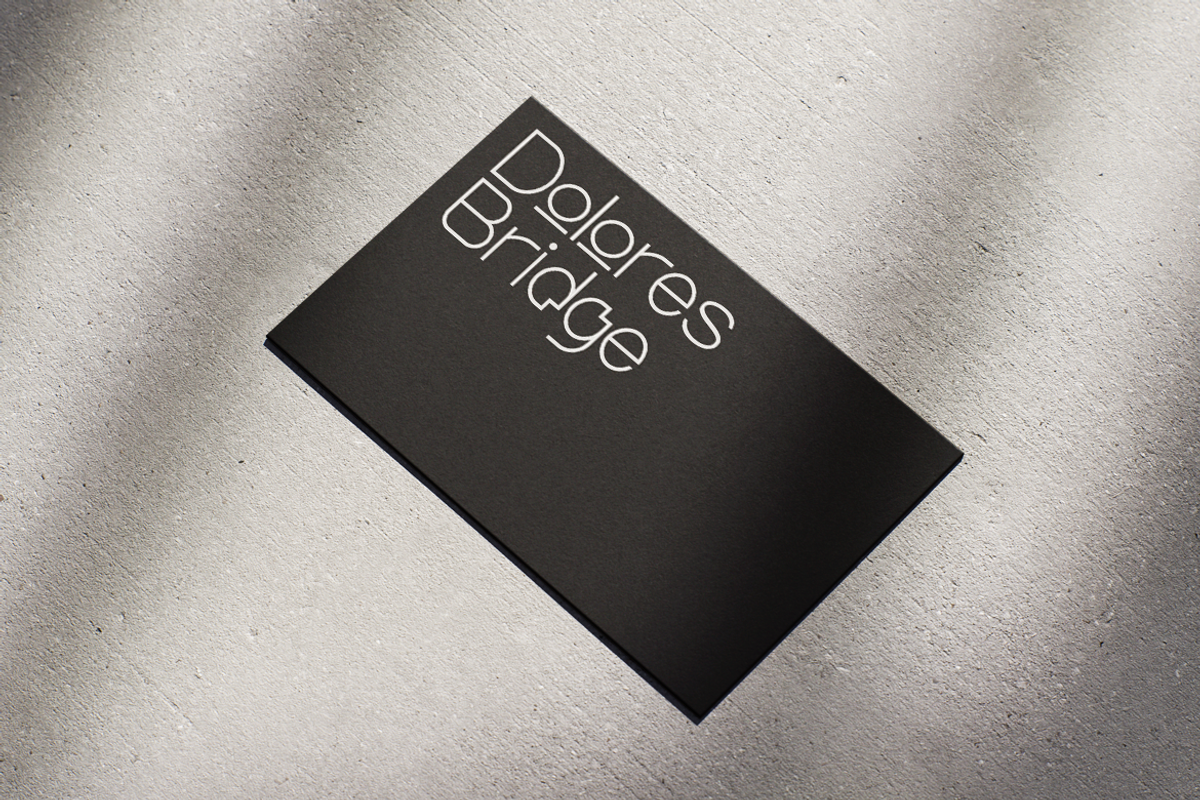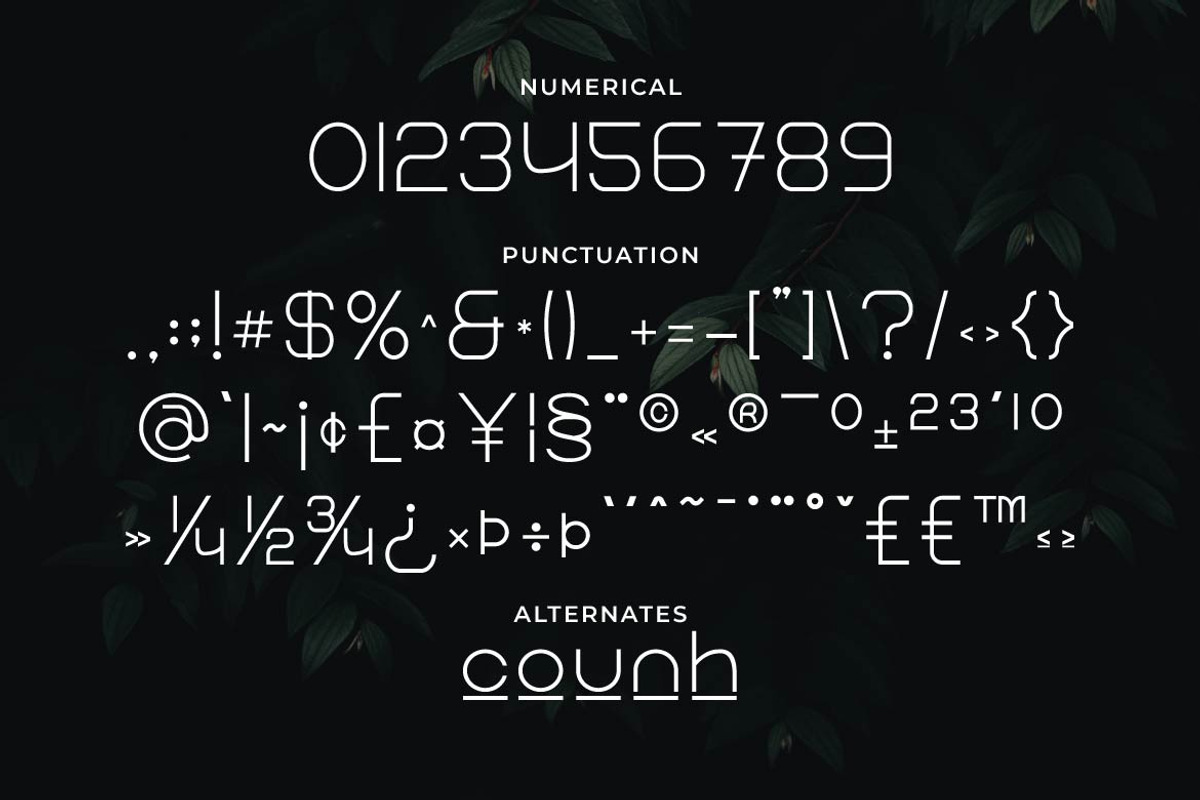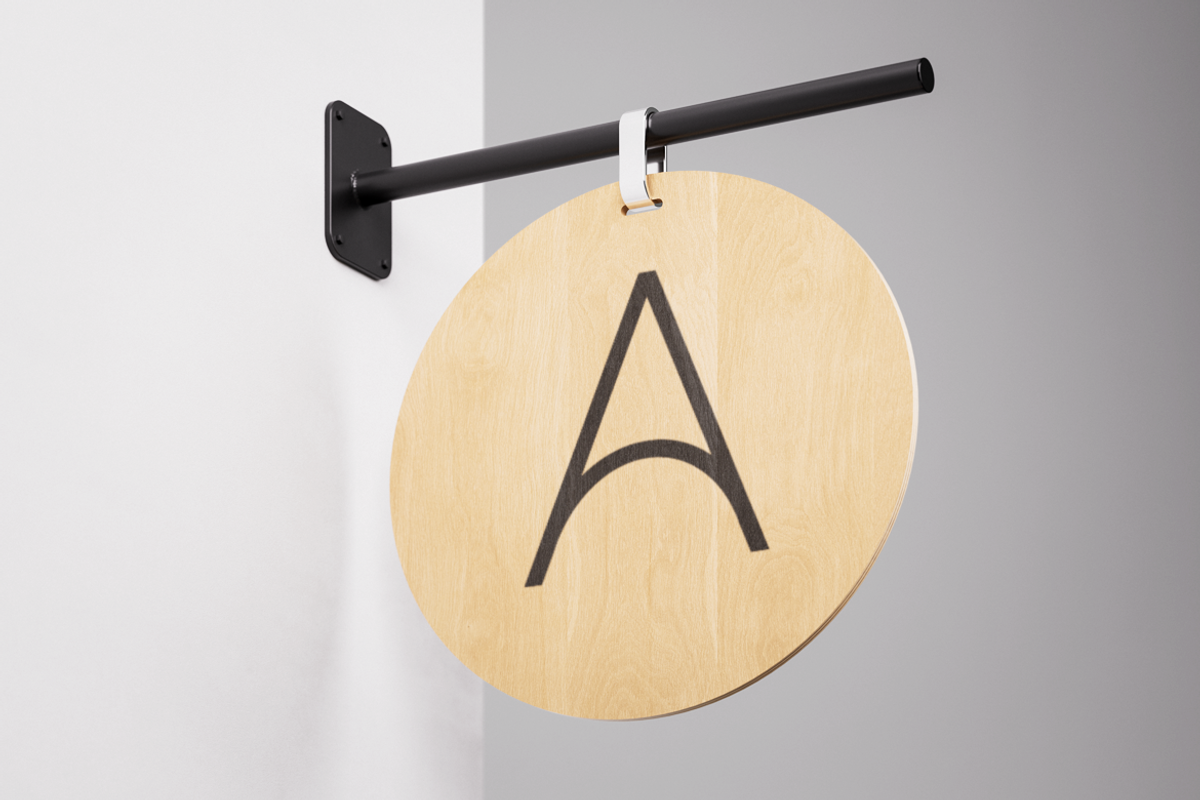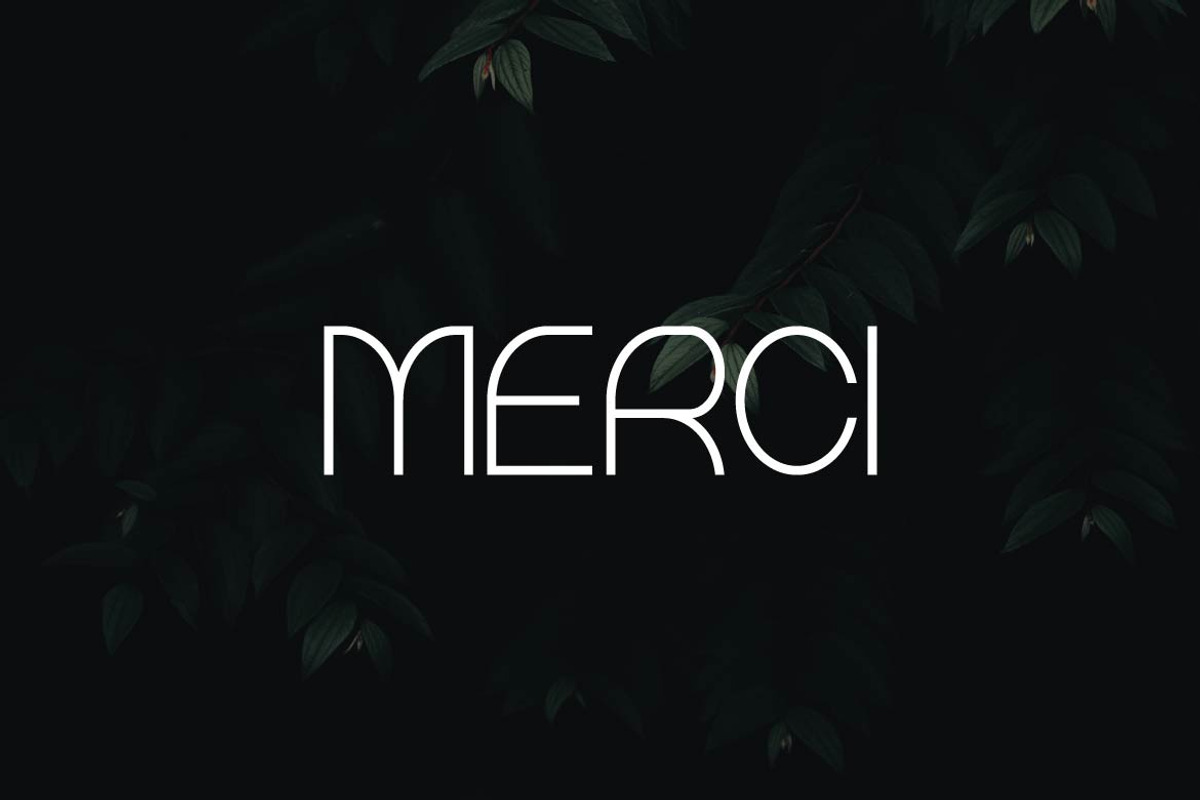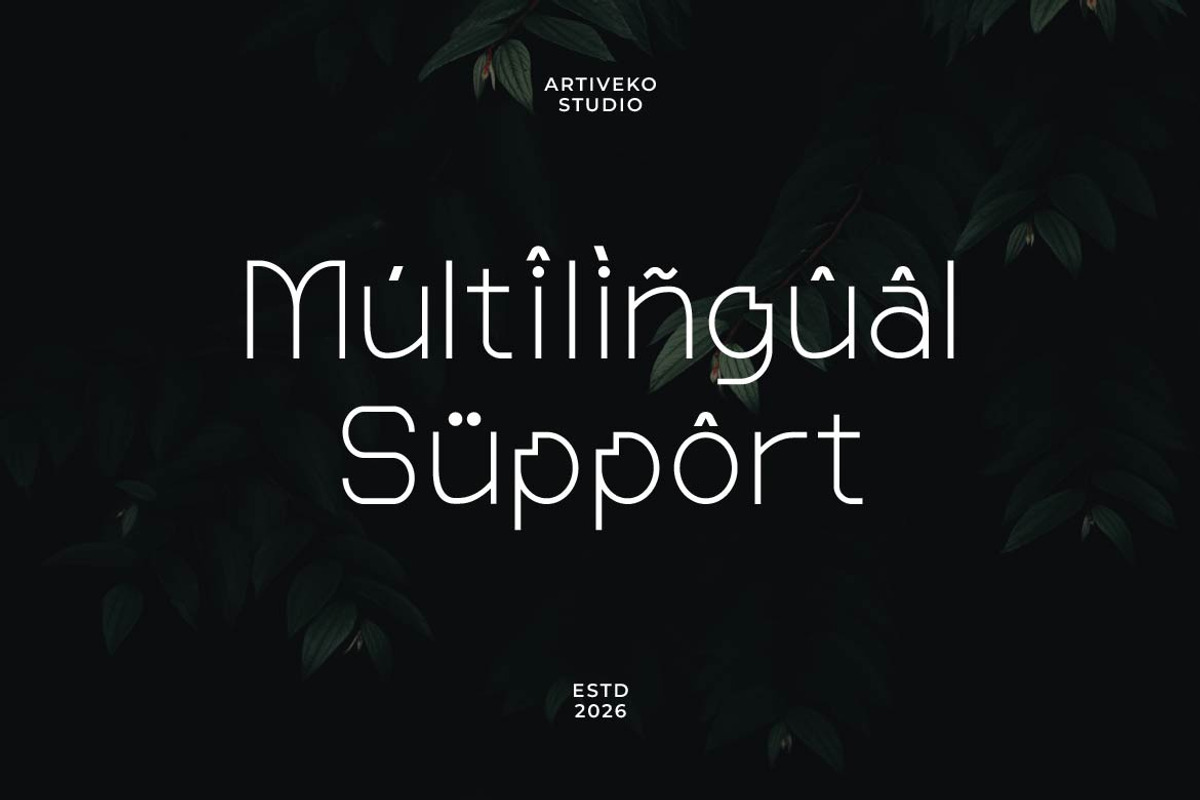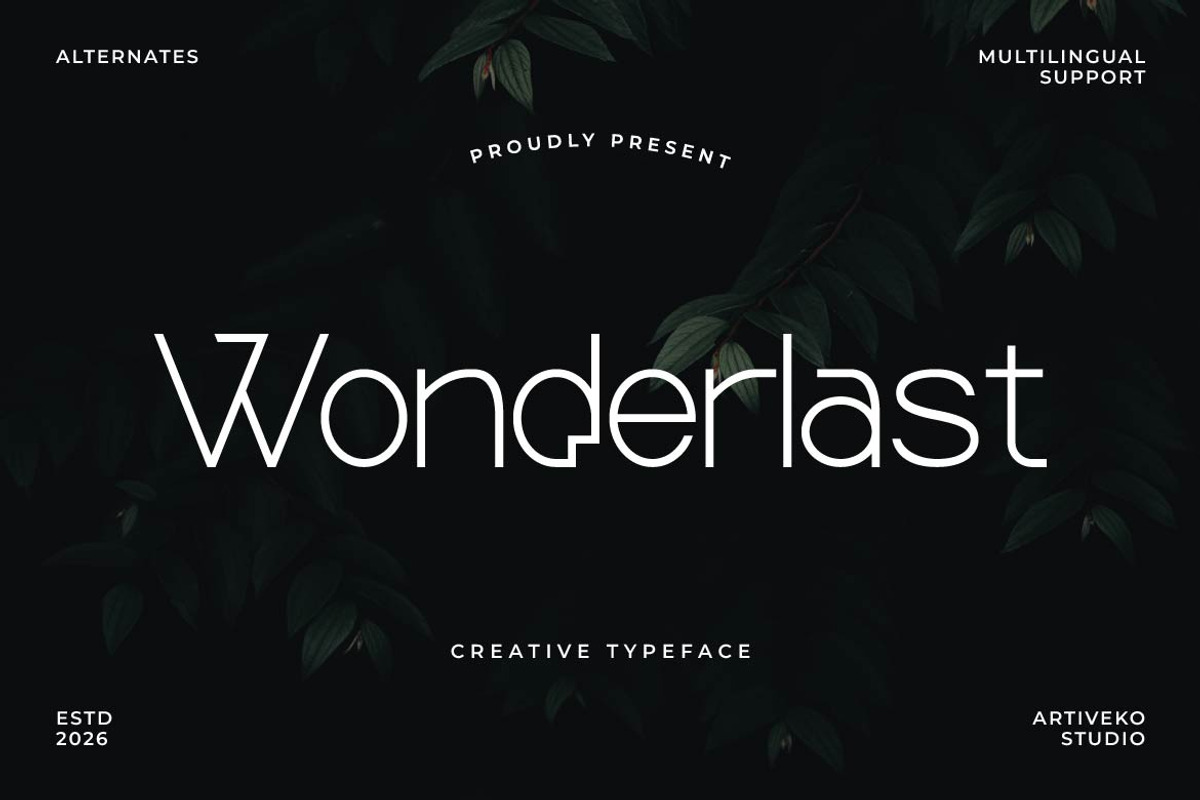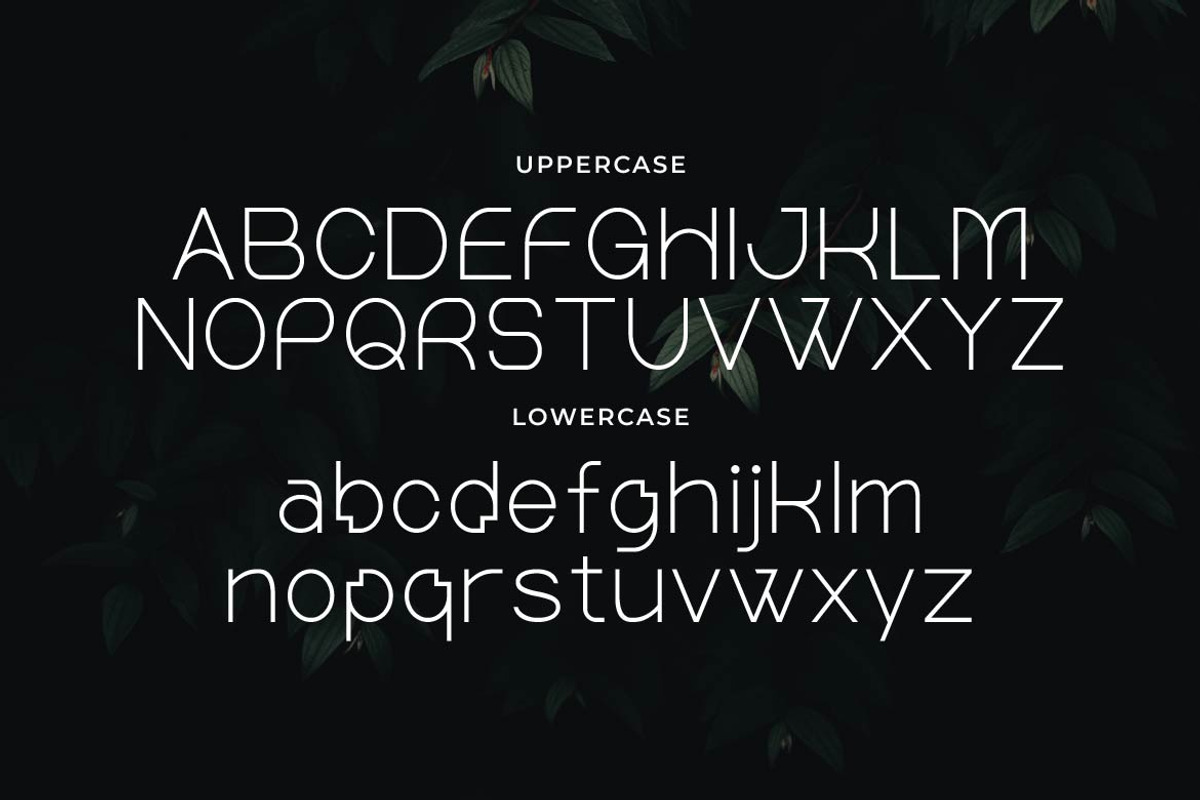
Wonderlast – Creative Display Sans
Wonderlast is a creative display sans serif typeface designed to inspire bold ideas and unforgettable visual experiences. With expressive letterforms, modern proportions, and a distinctive contemporary style, Wonderlast helps designers create typography that feels fresh, energetic, and full of personality.
Ton of glyphs